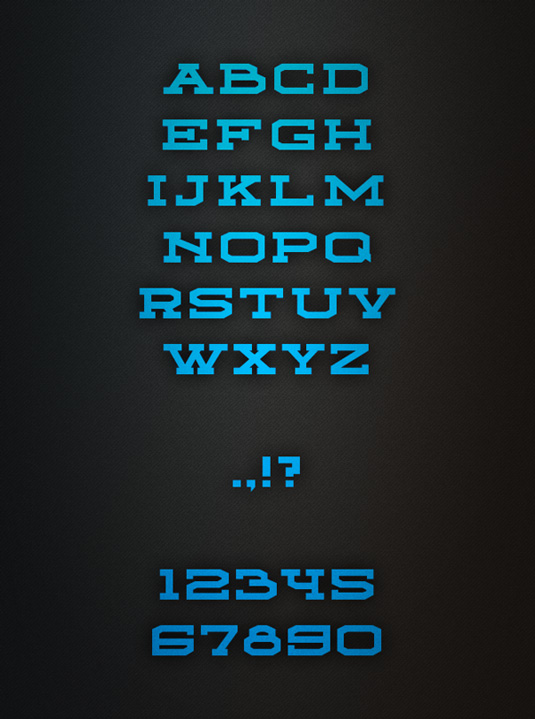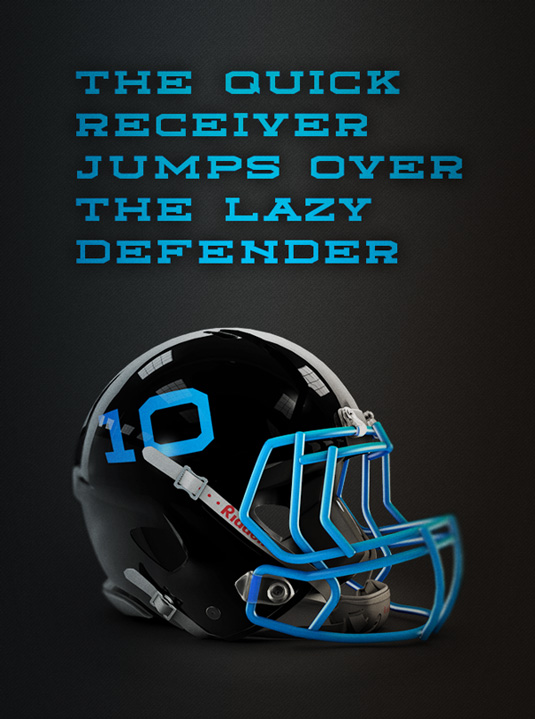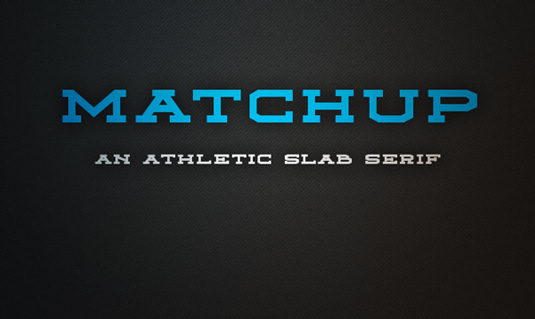
Font of the day: Matchup
Matchup by Ryan Welch
Graphic designer Ryan Welch has, by his own admission on Behance, "an unhealthy obsession with sports". So it's no surprise that he describes his typeface design Matchup as an "athletic slab serif".